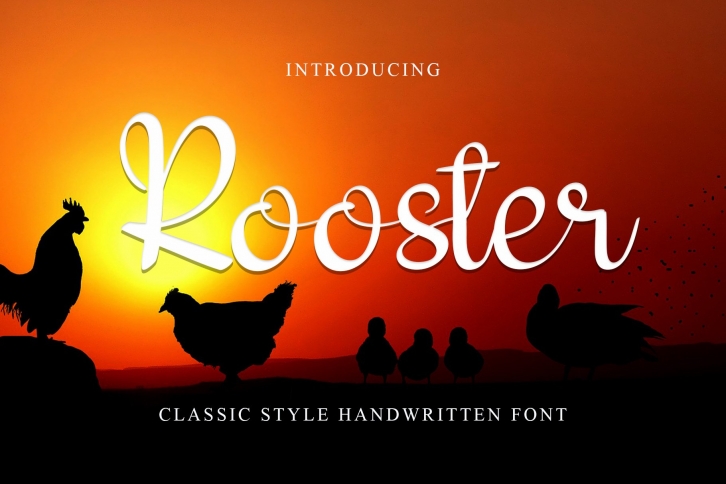
Rooster is a trendy and unique font with an authentic style. It was designed by Giart Studios and it's a great choice for creative people who need such a font. It was released on March 16, 2022 and the file size is 21.87 MB. Rooster will add an organic vibe to any design idea!